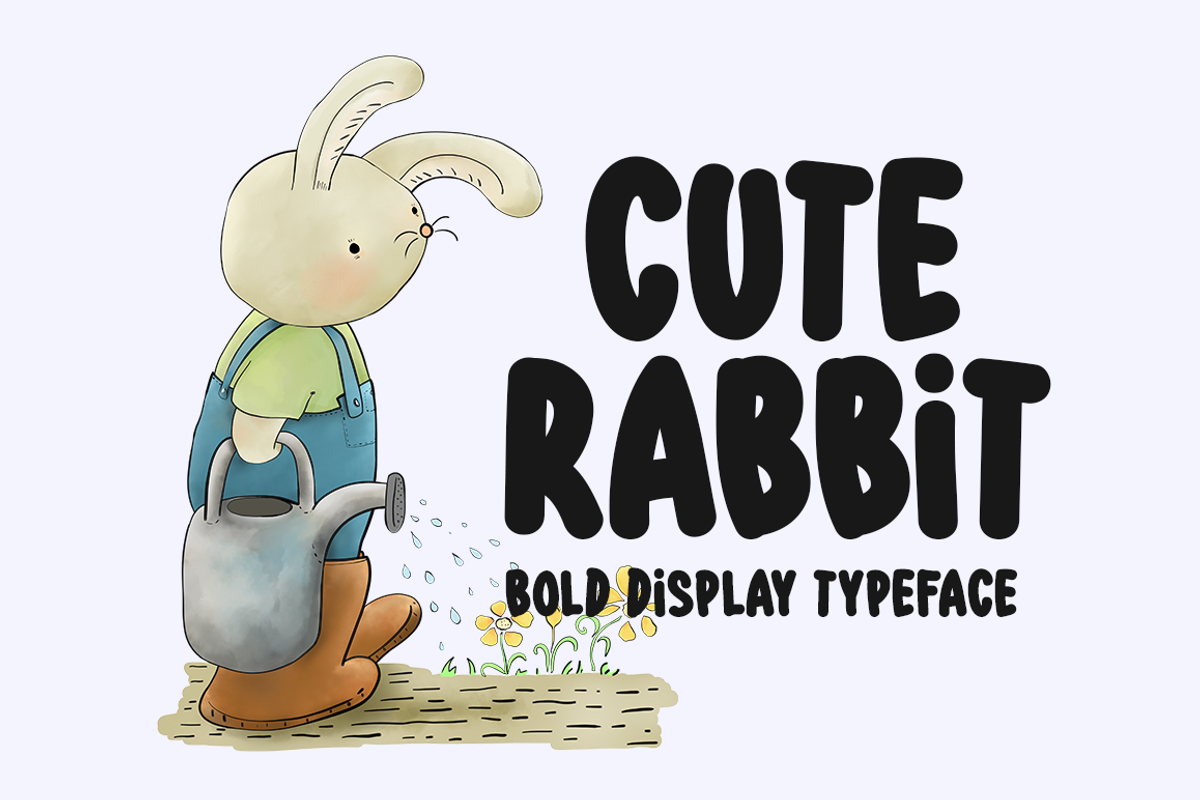
Cute Rabbit Typeface Free Download
Hop into a world of charm and playfulness with Cute Rabbit Typeface Free Download. This adorable display font is perfect for kids’ projects, baby shower invitations, toy packaging, storybooks, and anything that needs a sweet and joyful vibe. With rounded edges and whimsical curves, Cute Rabbit captures the innocence and fun of childhood in every letter.
Its friendly, easy-to-read design includes uppercase and lowercase letters, numbers, and punctuation—ideal for testing in creative layouts and mockups. Whether you're creating branding for a children's boutique or designing cheerful greeting cards, this font brings a lighthearted personality that’s impossible to ignore.